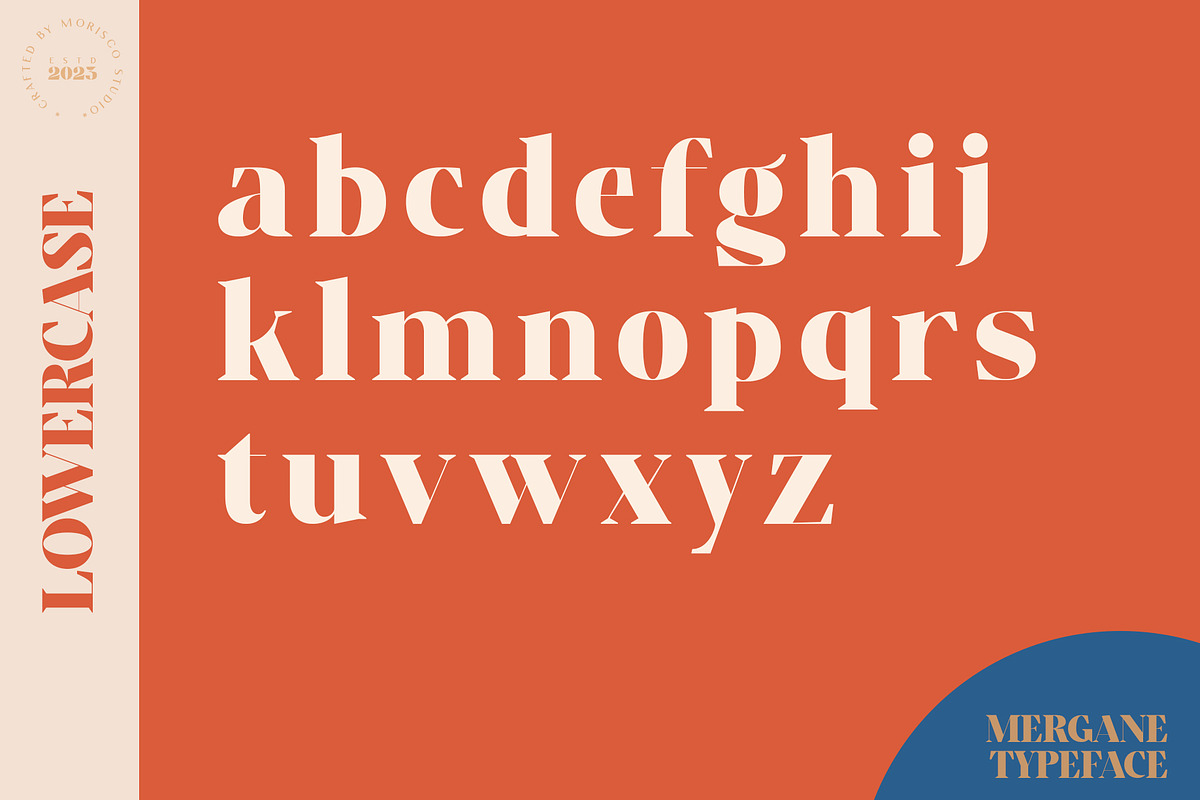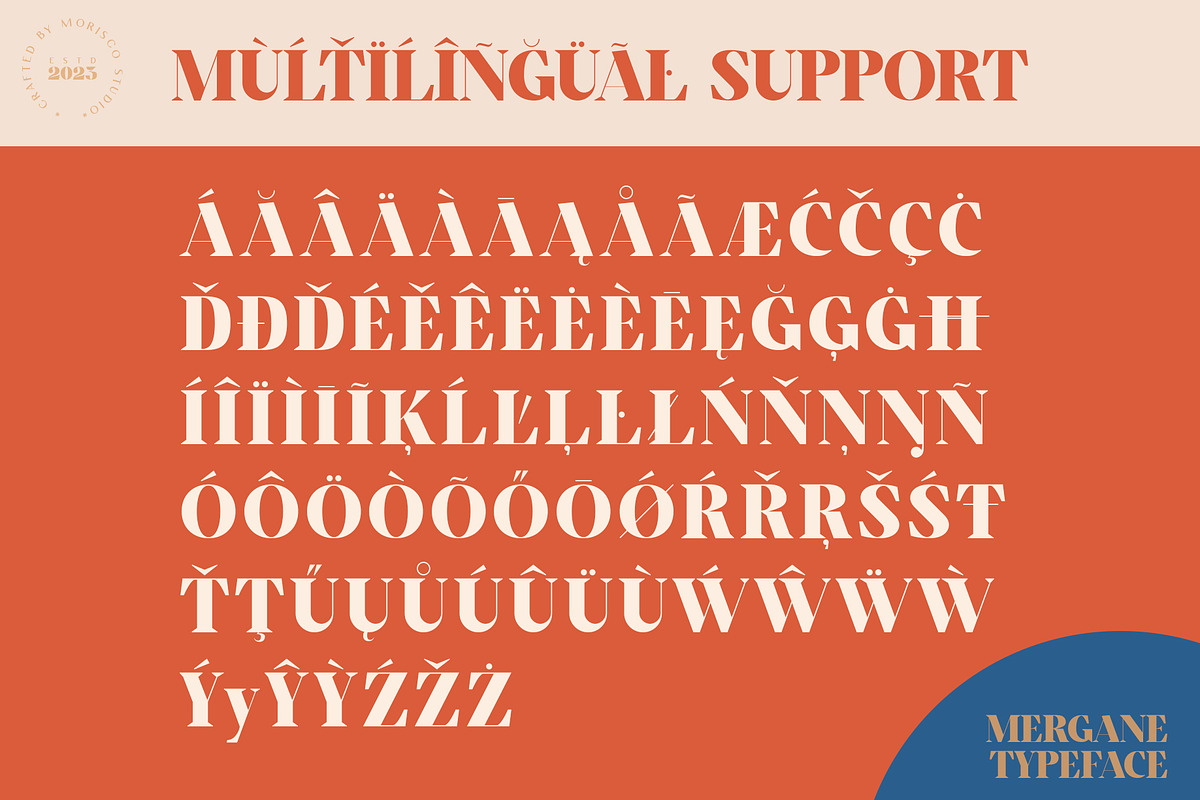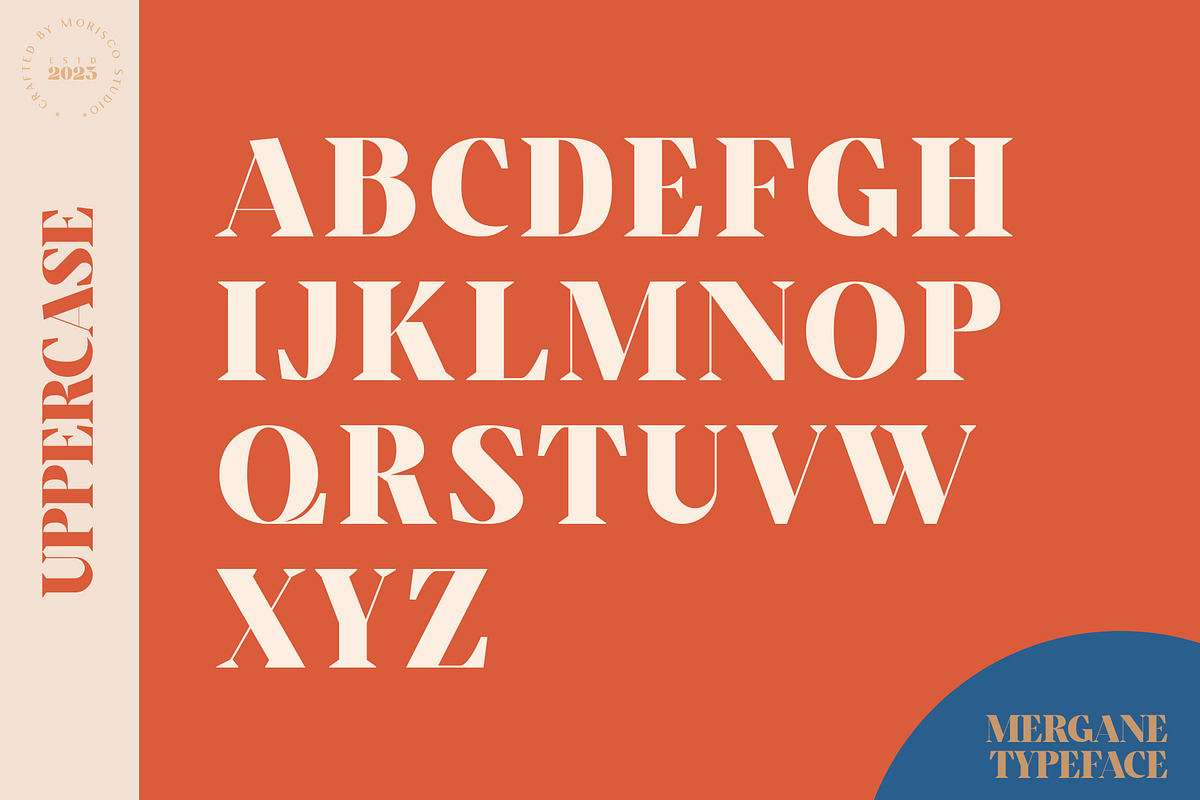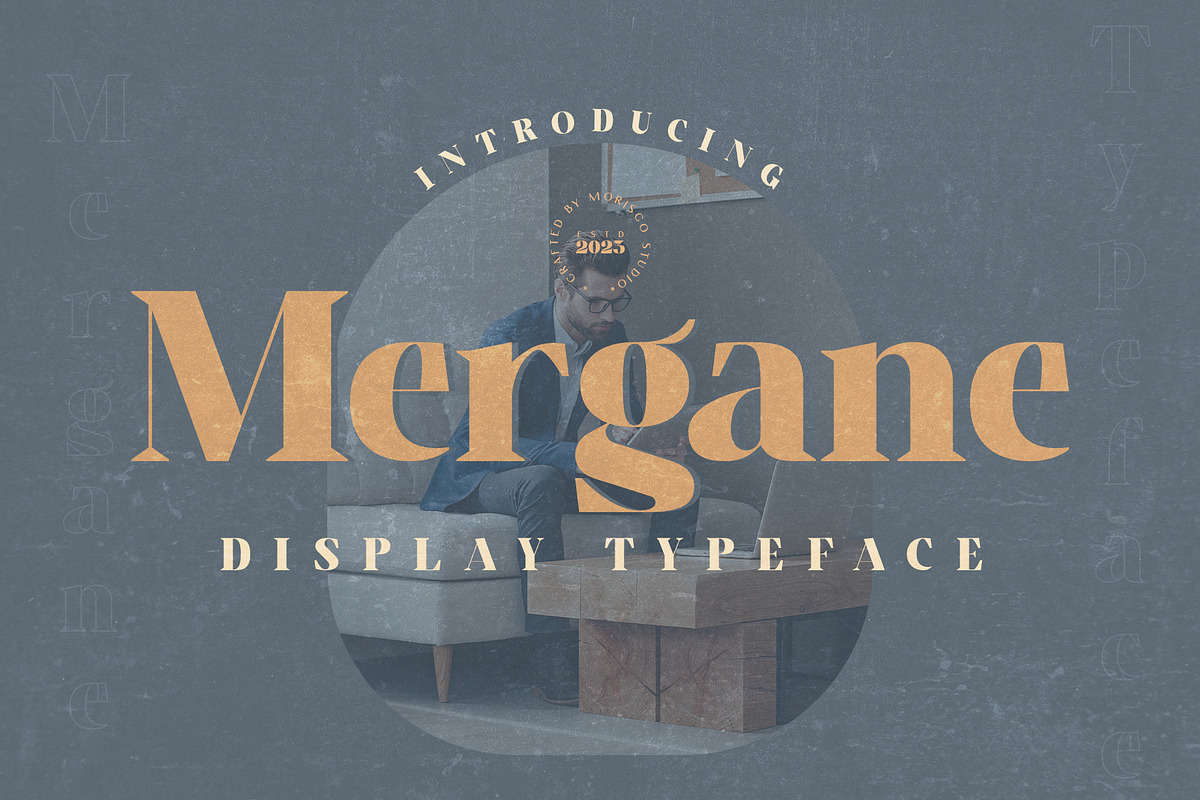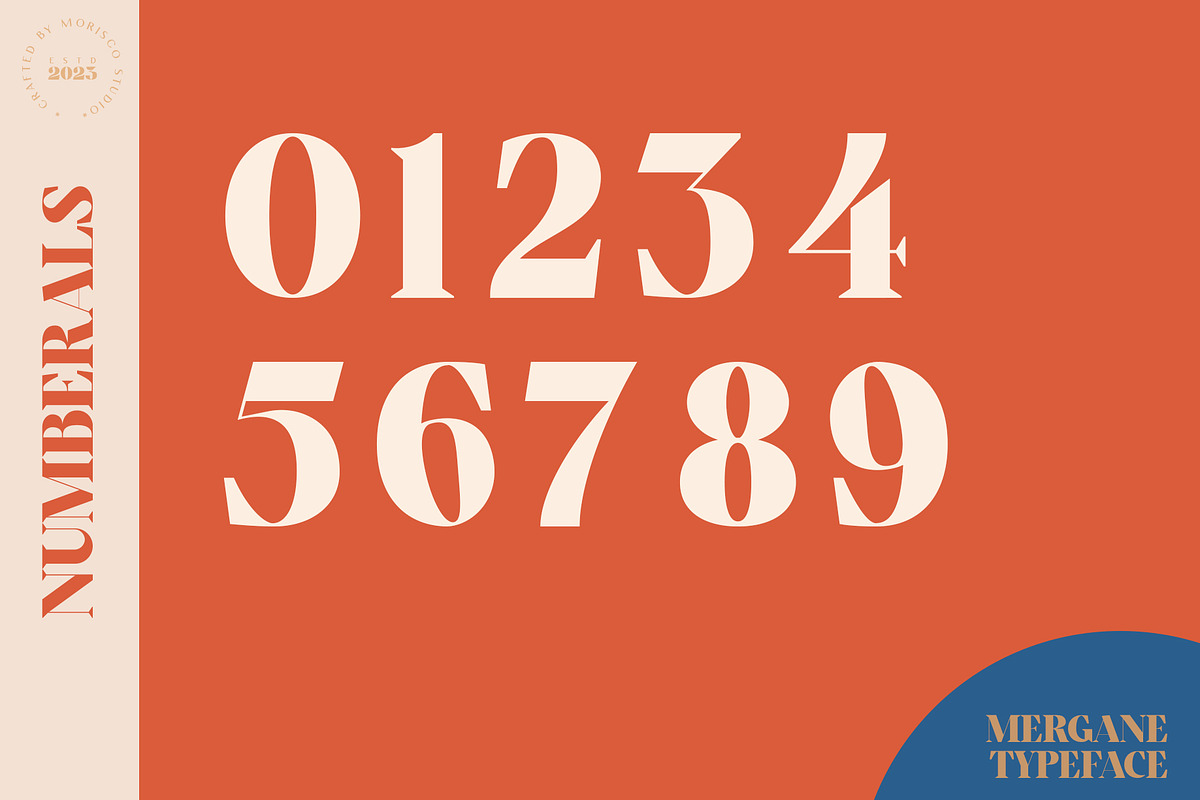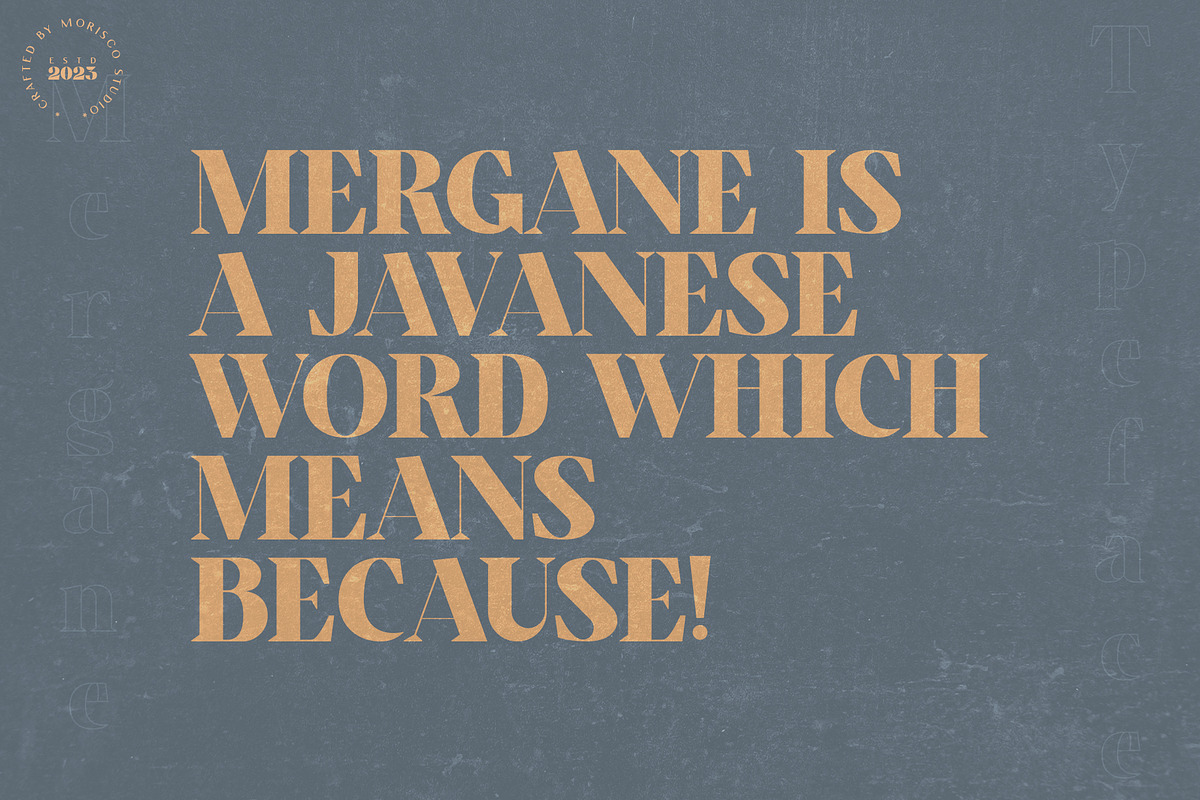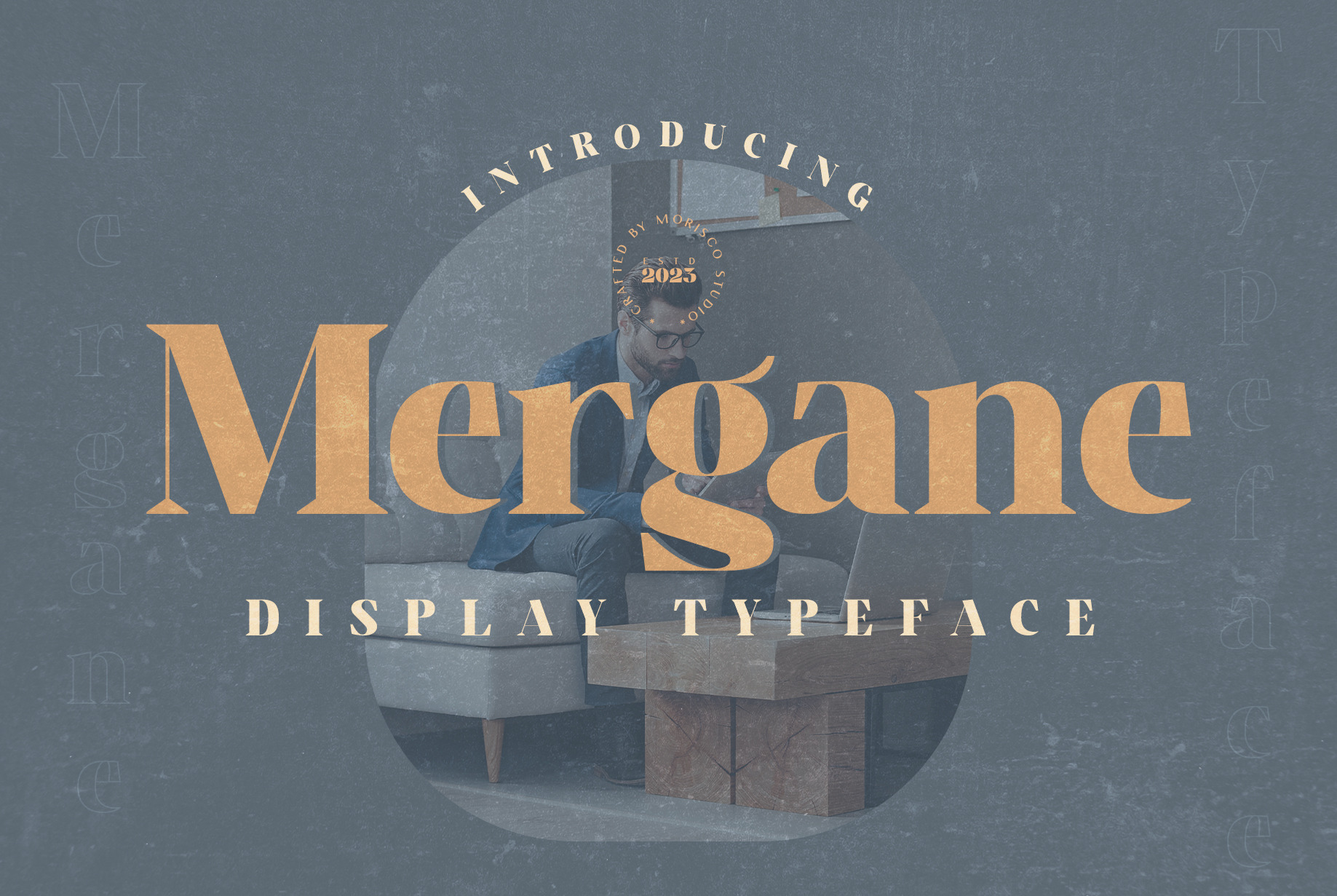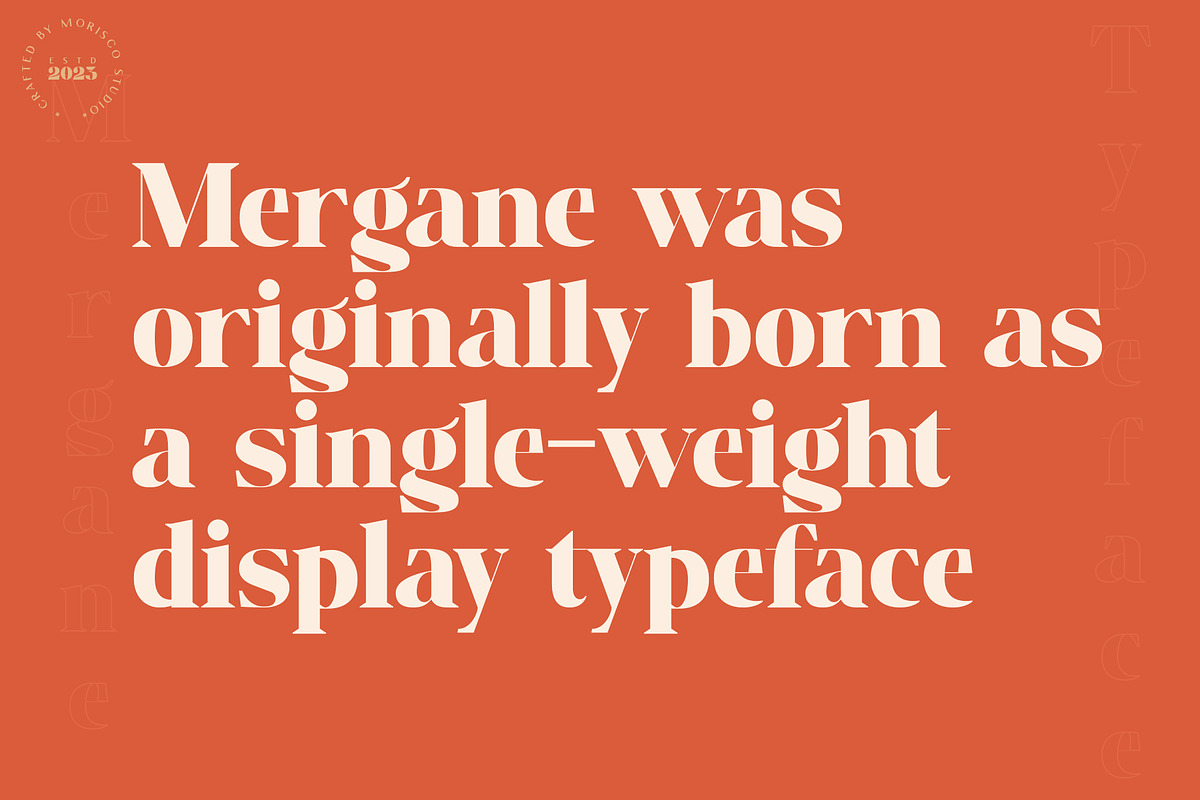
Mergane - Display Typeface
Mergane is a modern typeface with a unique character designed by morisco studio. This typeface is well-suited for headlines and any project, like branding, print template, logo, and more.